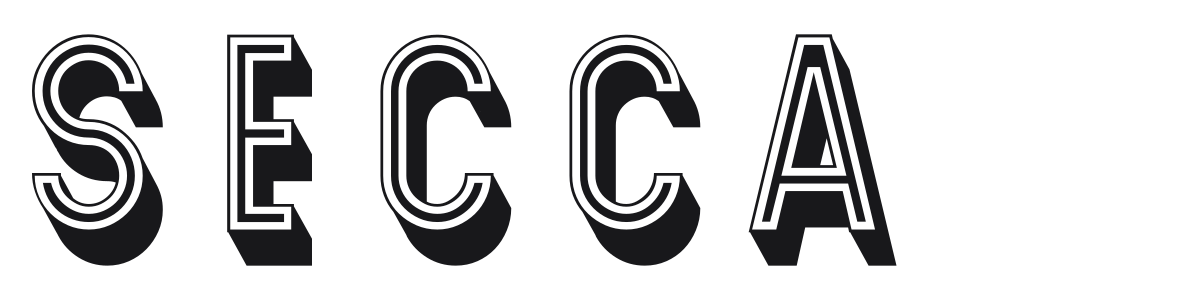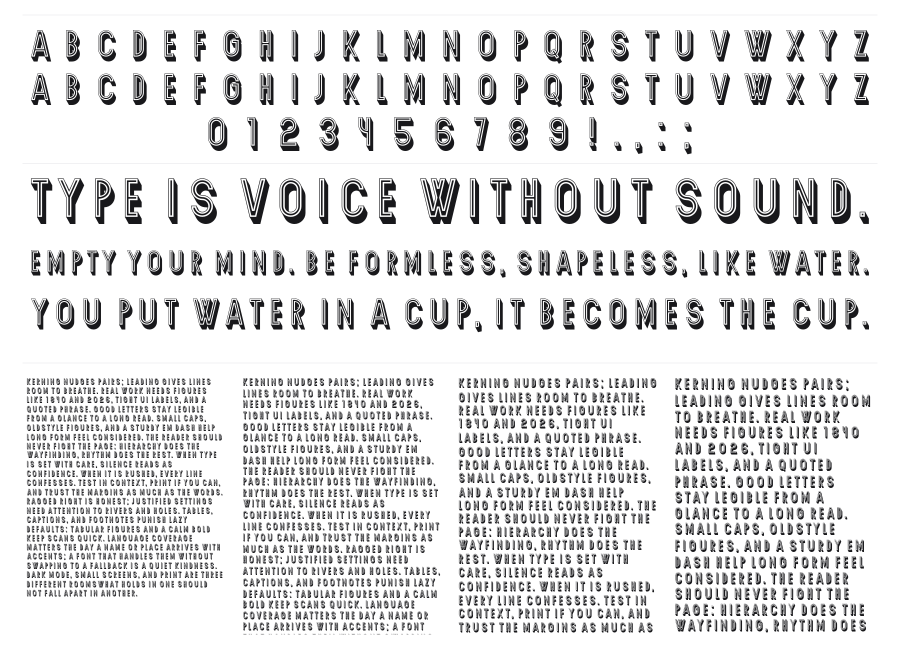
Secca
Secca is a bold condensed display font with a striking inline and drop-shadow treatment that gives each character a punchy three-dimensional look. The geometric construction and tight proportions nod to 1930s Art Deco poster lettering and vintage American wood-type. It commands attention at large sizes and carries a confident, nostalgic energy.